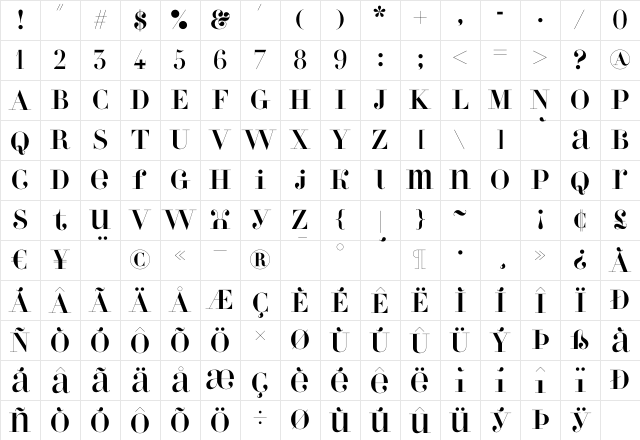
Perla Regular
Design Context for Perla
Perla is a composed and adaptable typeface that performs quietly and consistently across a wide range of design contexts.
Pro Tip: Use Perla in both headline and body roles to test its range before committing to a single application.